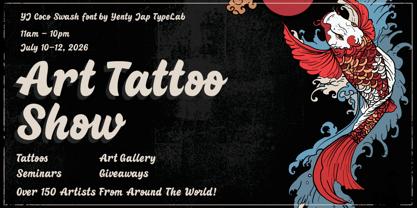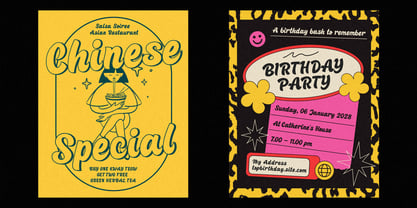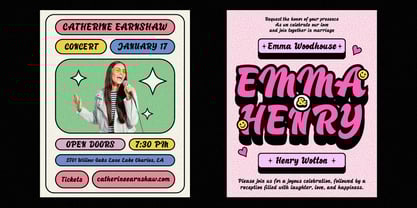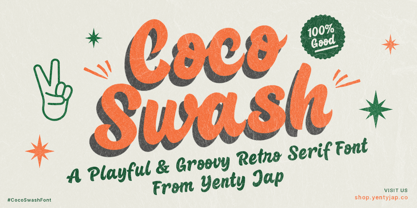
YJ Coco Swash
The YJ Coco Swash Font Family was designed by Yenty Jap and published by Yenty Jap Co. YJ Coco Swash contains 1 styles. More about this family
Say Hello to YJ Coco Swash! If your design needs a little pick-me-up, you’ve come to the right place. YJ Coco Swash is that bold, chunky friend who always knows how to make you smile. It’s a retro-inspired serif that doesn’t take itself too seriously—it’s here to have fun, tell the truth, and look good doing it. With its curvy swashes and heavy contrast, this font feels like a warm hug from the 70s, but with a clean, modern twist that keeps it fresh. It’s perfect for when you need your words to feel sincere but playful. Where does YJ Coco Swash shine? It loves being the center of attention! Use it for: Big, bold headers that need to pop (without shouting). Sticker packs and digital planners that need a groovy vibe. Branding & Logos that want to feel approachable and witty. Social media quotes that feel like a friendly advice session. Invitations that promise a good time. It’s completely vector-sharp and comes ready with multilingual support (check out those accents!), so you can spread the love in almost any language. Let YJ Coco Swash bring a little joy and a lot of personality to your next project. Happy creating!